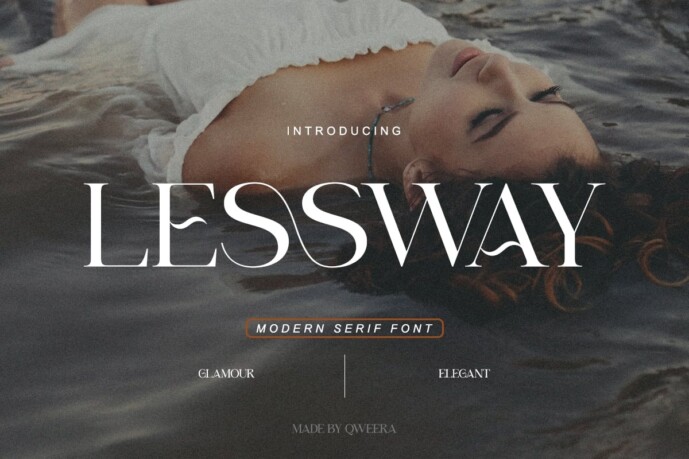
Lessway Font
Designer: IdhhamCholid
Lessway – Elegant Luxury Serif Font for Premium Branding
Lessway is a sophisticated serif typeface that exudes refined elegance and contemporary luxury. Featuring both Regular and Italic styles with exquisite alternates and ligatures, this font is meticulously crafted for high-end branding, luxury logos, premium packaging, and editorial designs that demand both beauty and prestige.
Where Modern Elegance Meets Timeless Sophistication
With its graceful serifs and balanced proportions, Lessway delivers exceptional versatility for brands seeking both refinement and impact. The carefully designed alternates and ligatures enable seamless typographic harmony, perfect for creating distinctive visual identities with a touch of class.